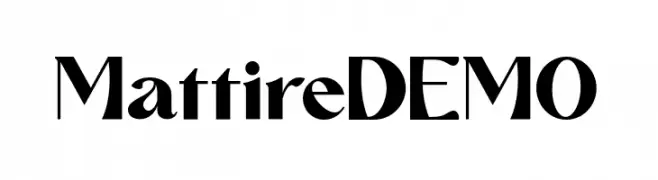
A whimsical and decorative font with curly, playful elements.
A decorative font with gothic-inspired serifs and intricate detailing.
A playful, hand-drawn font with tall, narrow letters and a whimsical style.
A playful, handwritten font with tall, narrow letters and a bold, casual style.
A modern, geometric font with clean lines and uniform width.
A bold, hand-drawn font with a scribbled texture and playful style.
A decorative, gothic-inspired font with thorn-like extensions.
A bold, gothic-inspired font with sharp, angular lines and a dramatic presence.
A bold, geometric font with a futuristic and edgy design.
A cursive, handwritten font with elegant curves and a modern touch.
An elegant script font with intricate swirls and high contrast, perfect for decorative purposes.
A modern, rounded sans-serif font with a clean and approachable design.
A modern, rounded sans-serif font with excellent readability and balanced proportions.
A bold, Gothic-inspired font with sharp, angular edges and dramatic serifs.
An edgy, gothic font with claw-like serifs and a bold, dramatic style.
A modern, semi-bold sans-serif typeface with clean lines and balanced proportions.
An elegant, flowing script font with a classic italic style.
A modern geometric font with angular shapes and clean lines.
A bold, gothic-inspired font with sharp, angular edges and dramatic styling.
A dynamic and elegant script font with bold, flowing curves.
A bold, playful handwritten font with rounded strokes and a casual style.
Icon-based decorative font with Russian cultural and historical imagery.
A bold, cursive font with elegant loops and decorative flourishes.
A playful cartoon-style font with animated numbers featuring expressive faces.
A playful, cartoonish font with animated numbers full of personality.
Bold, geometric sans-serif font with a condensed and modern style.
A playful, handwritten-style font with tall, narrow characters and a casual feel.
A bold, dramatic font with exaggerated curves and a vintage-modern aesthetic.
An elegant script font with flowing, interconnected letters and ornate flourishes.